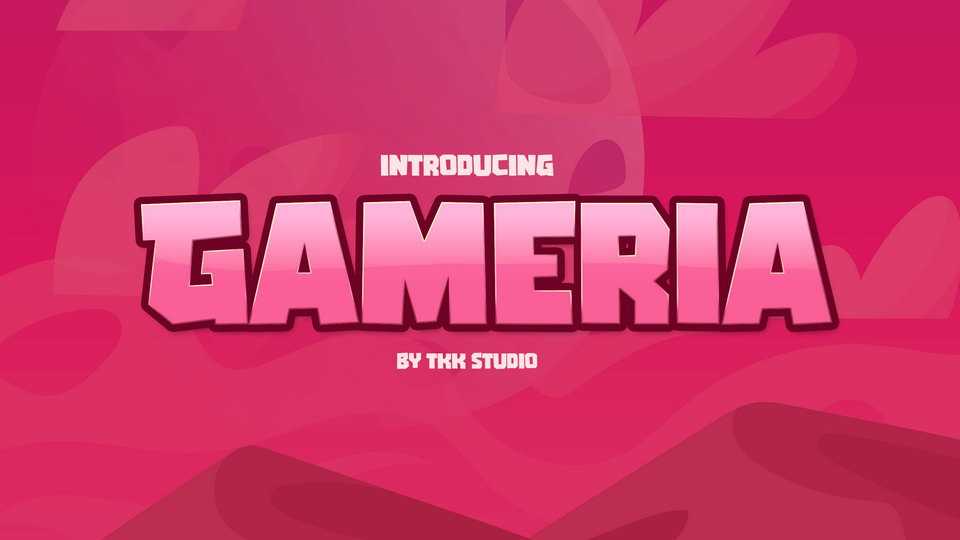
Download Gameria font, a powerful, quirky display typeface with strong sharp corners and blocky shapes. Gameria will emphasize on every word you put on the screen.